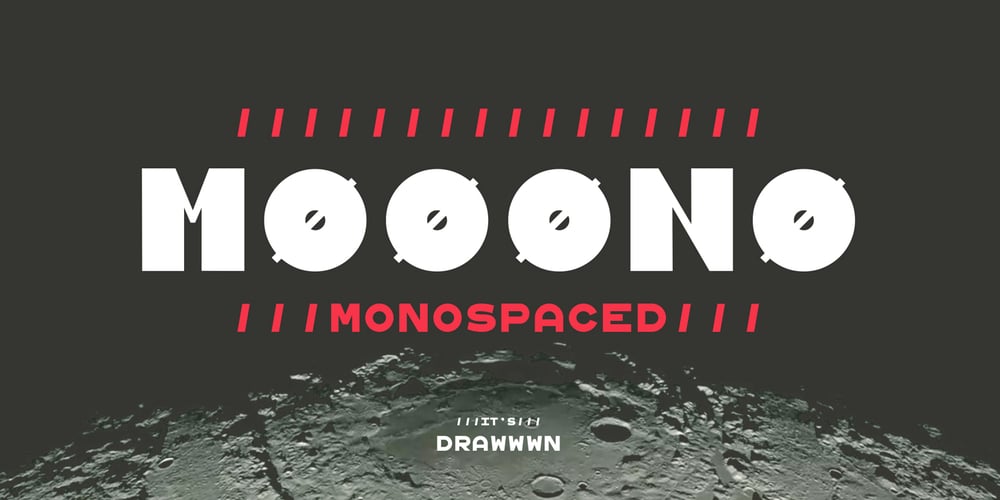
Mooono Font Family was designed by Ryan Thomas and published by Drawwwn. Mooono contains 1 styles and family package options. Mooono is retro futuristic monospaced font. The bright side (uppercase) is straight and to the point but the dark side (lowercase) is fat and funky. Mix up the upper and lower to create some serious spaced out vibes. I only saw the crescent, you’ll see the whole of the mooono!